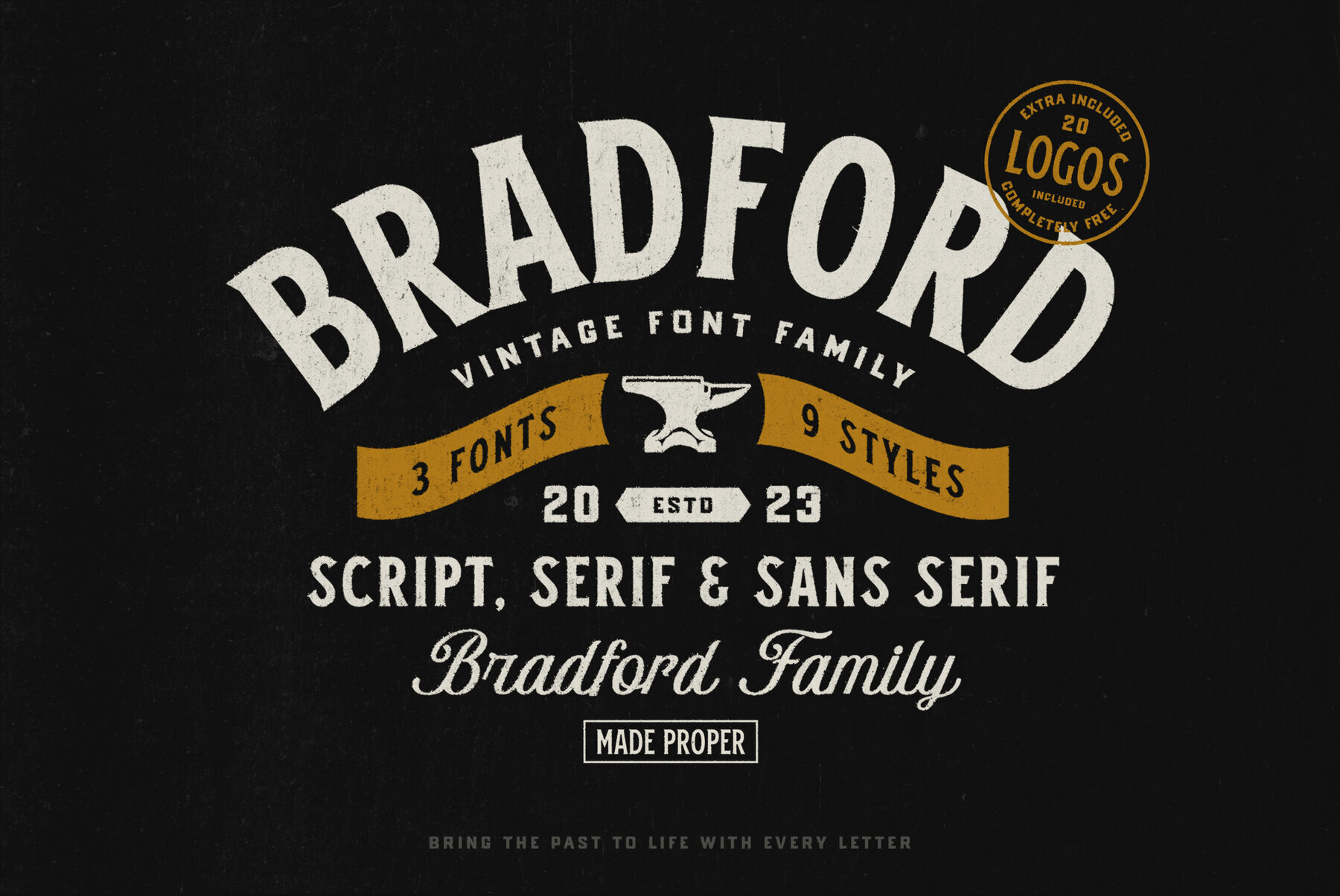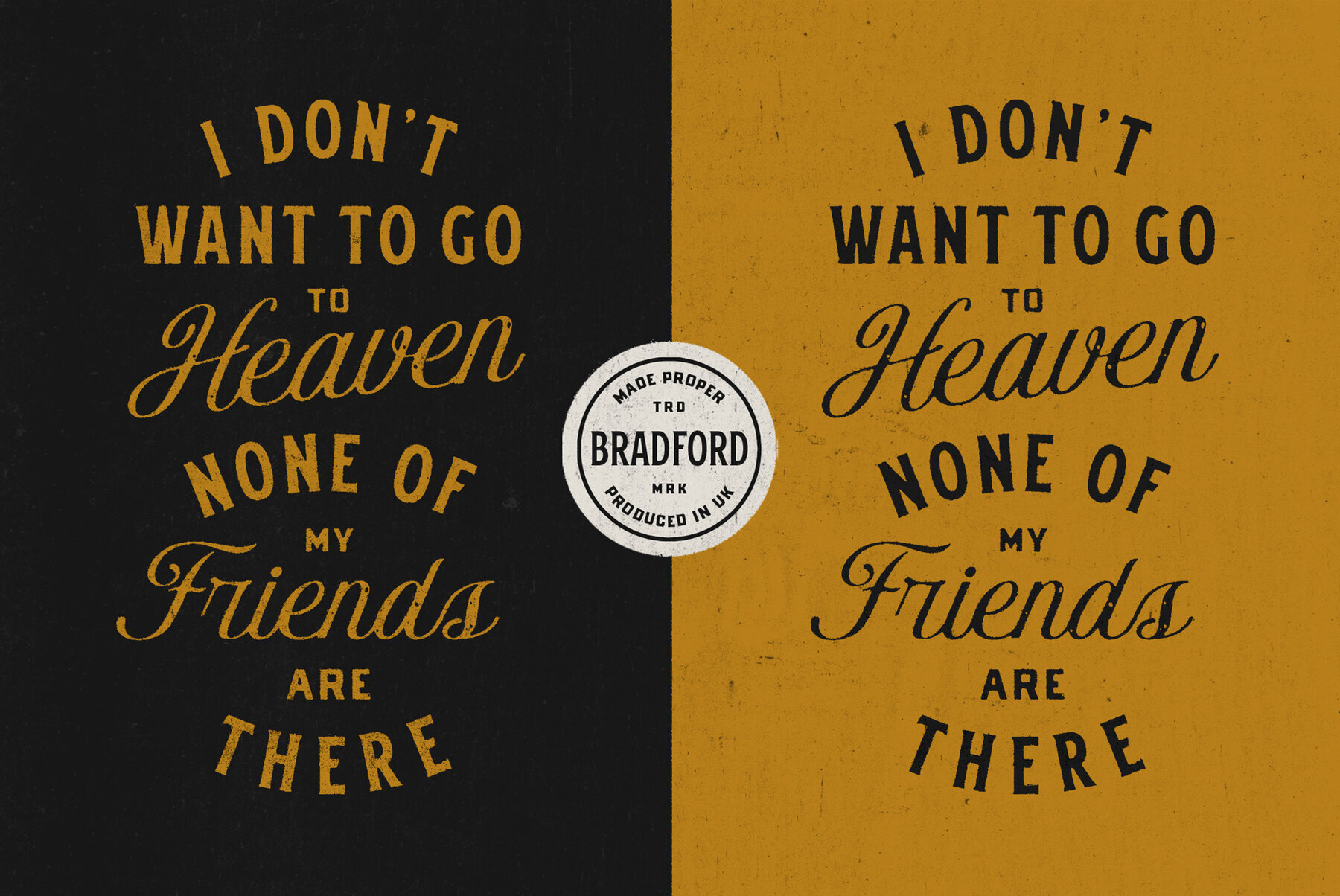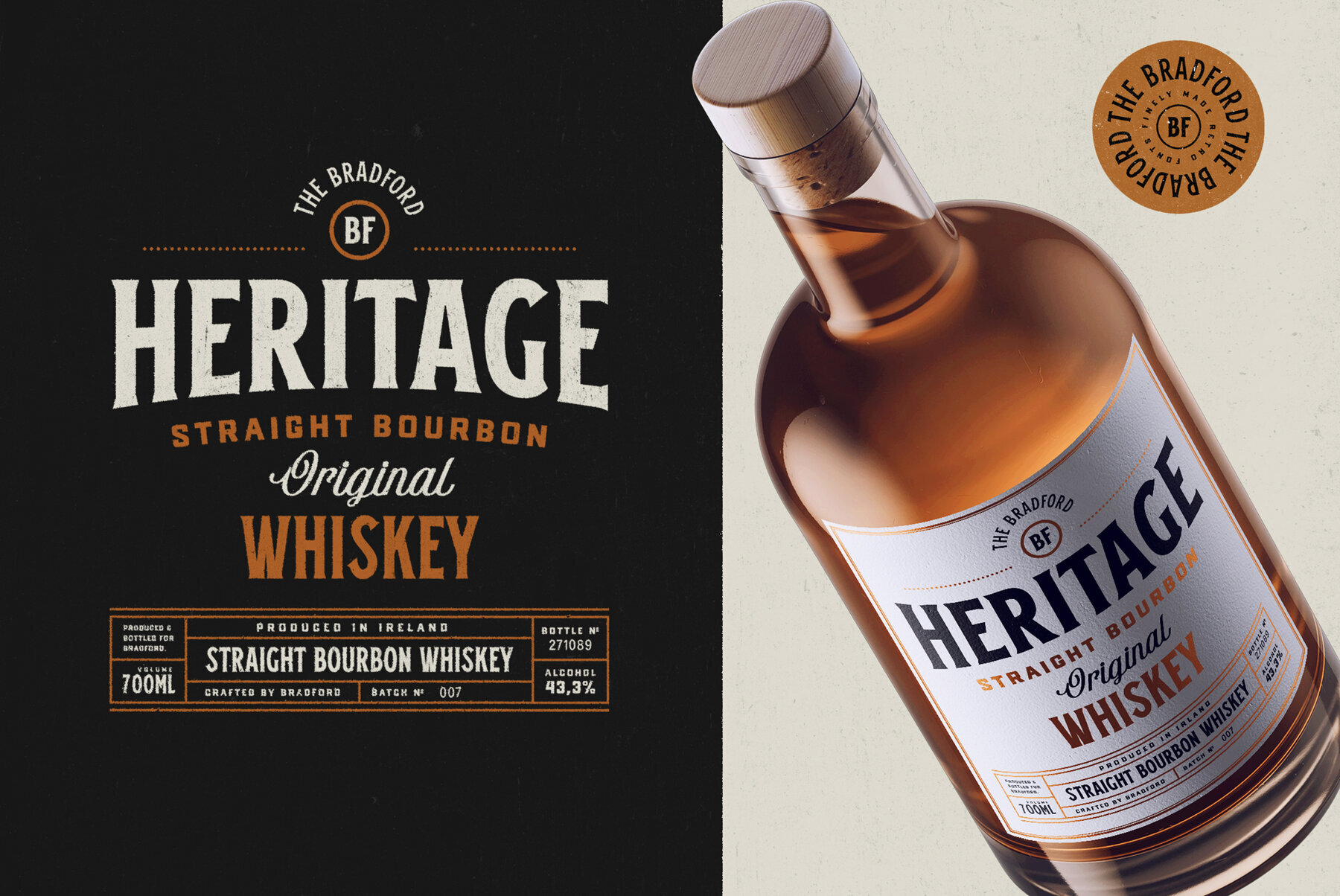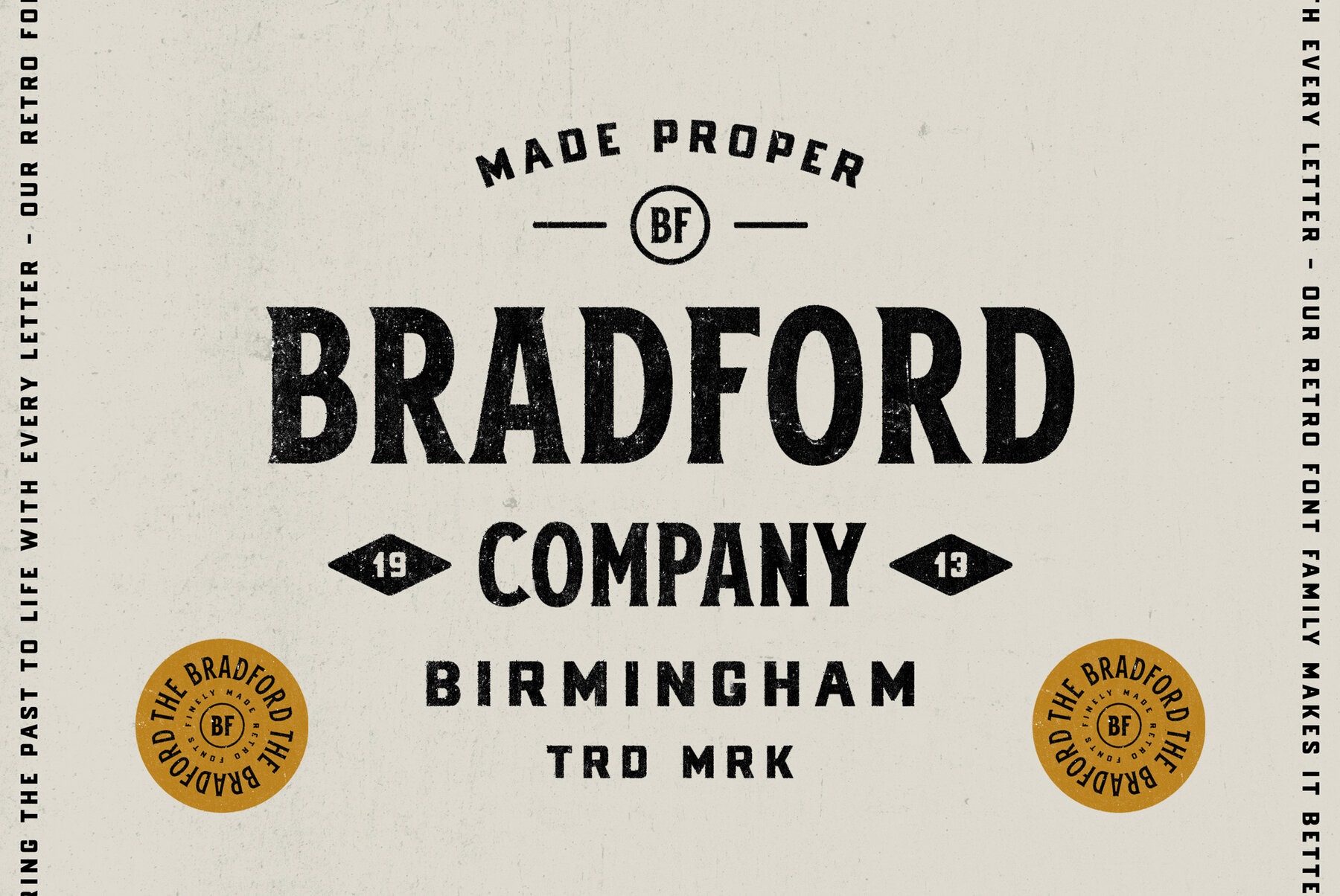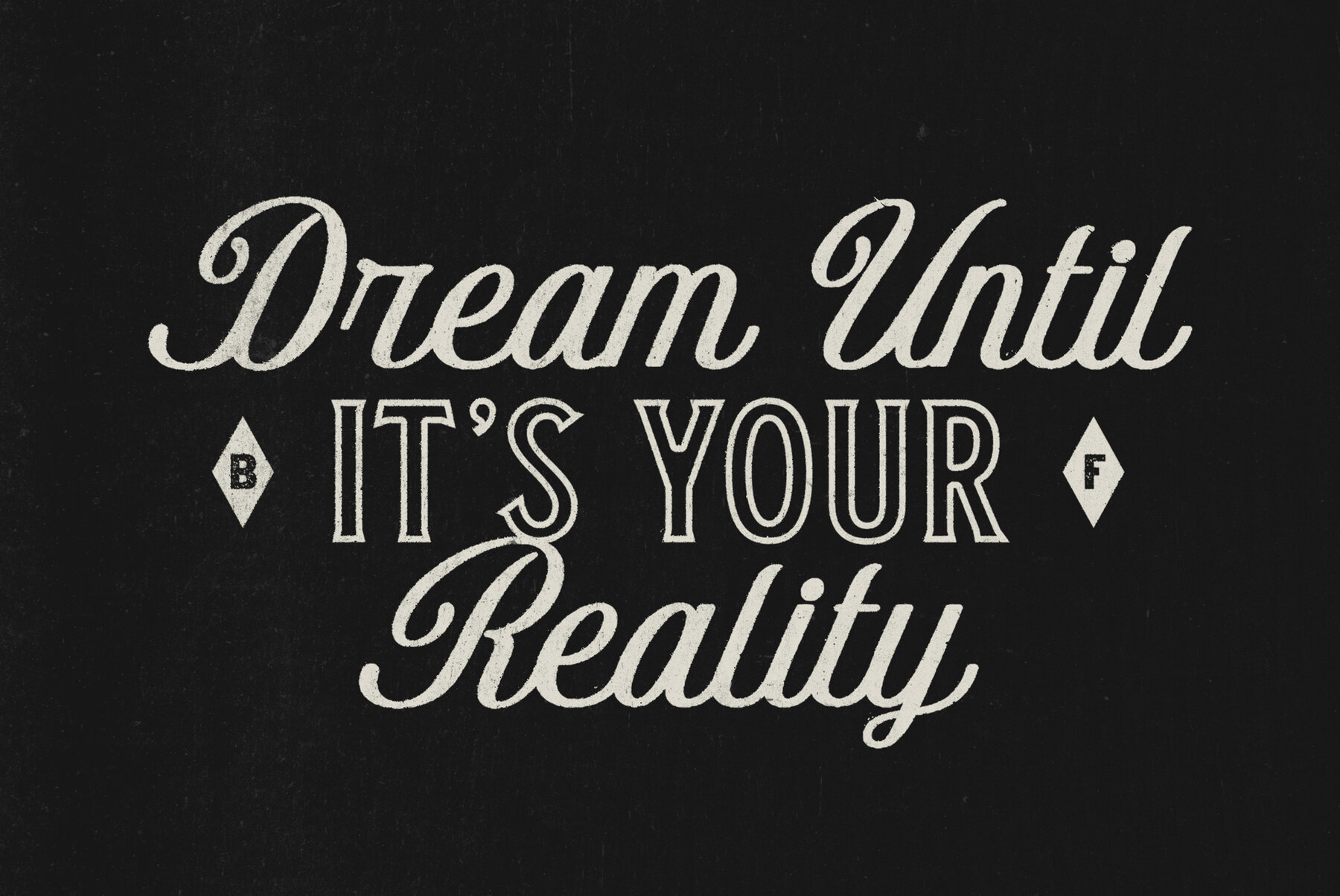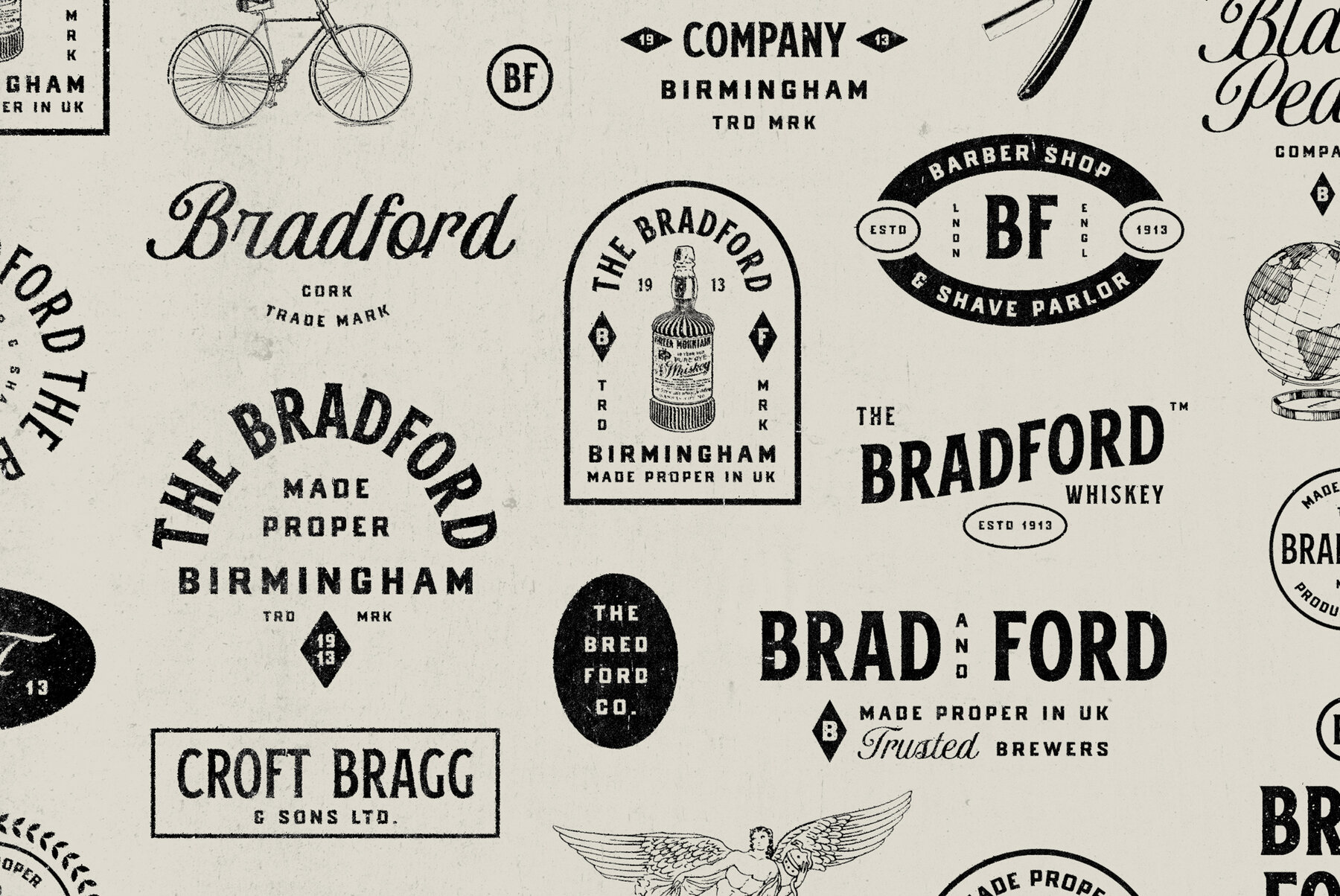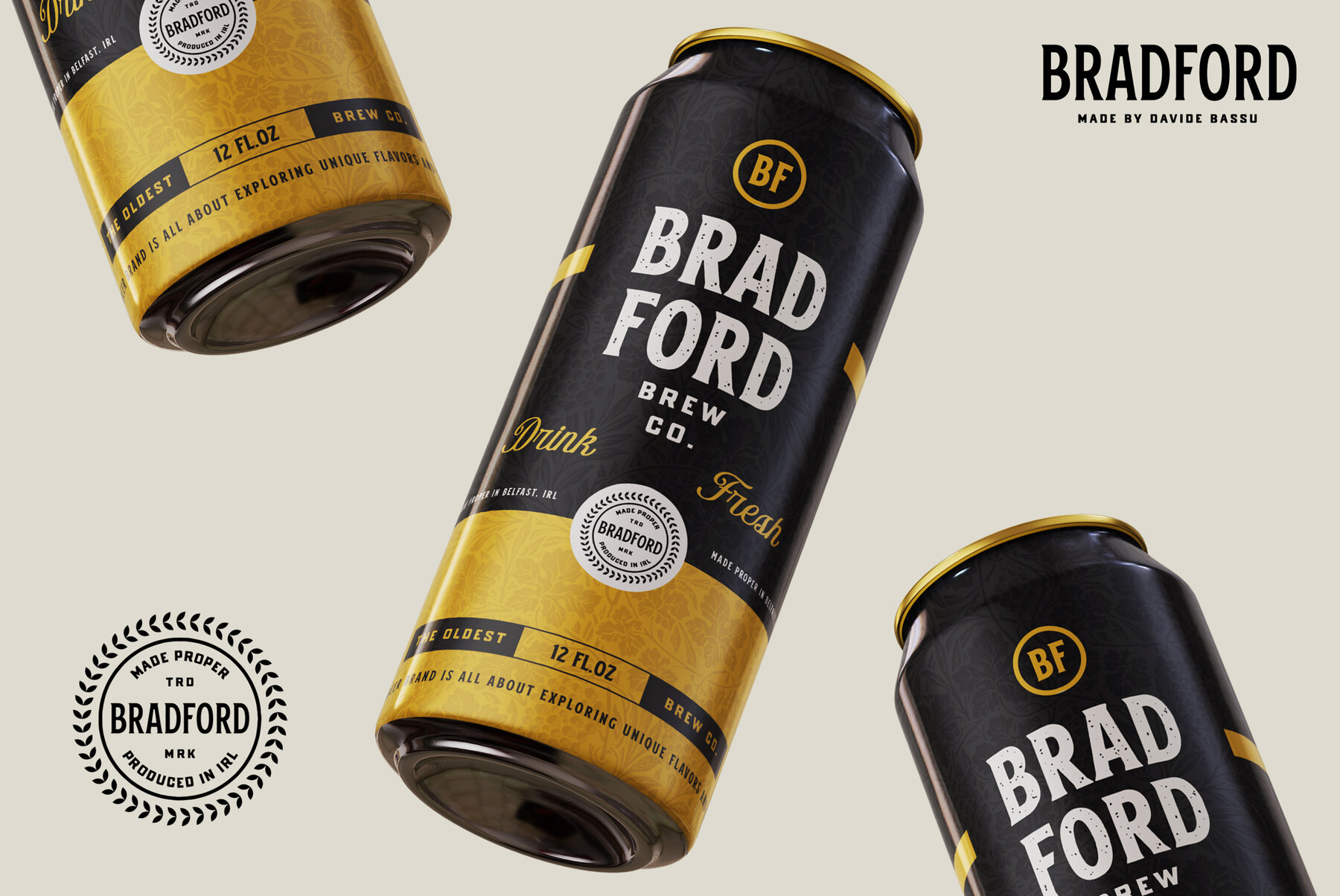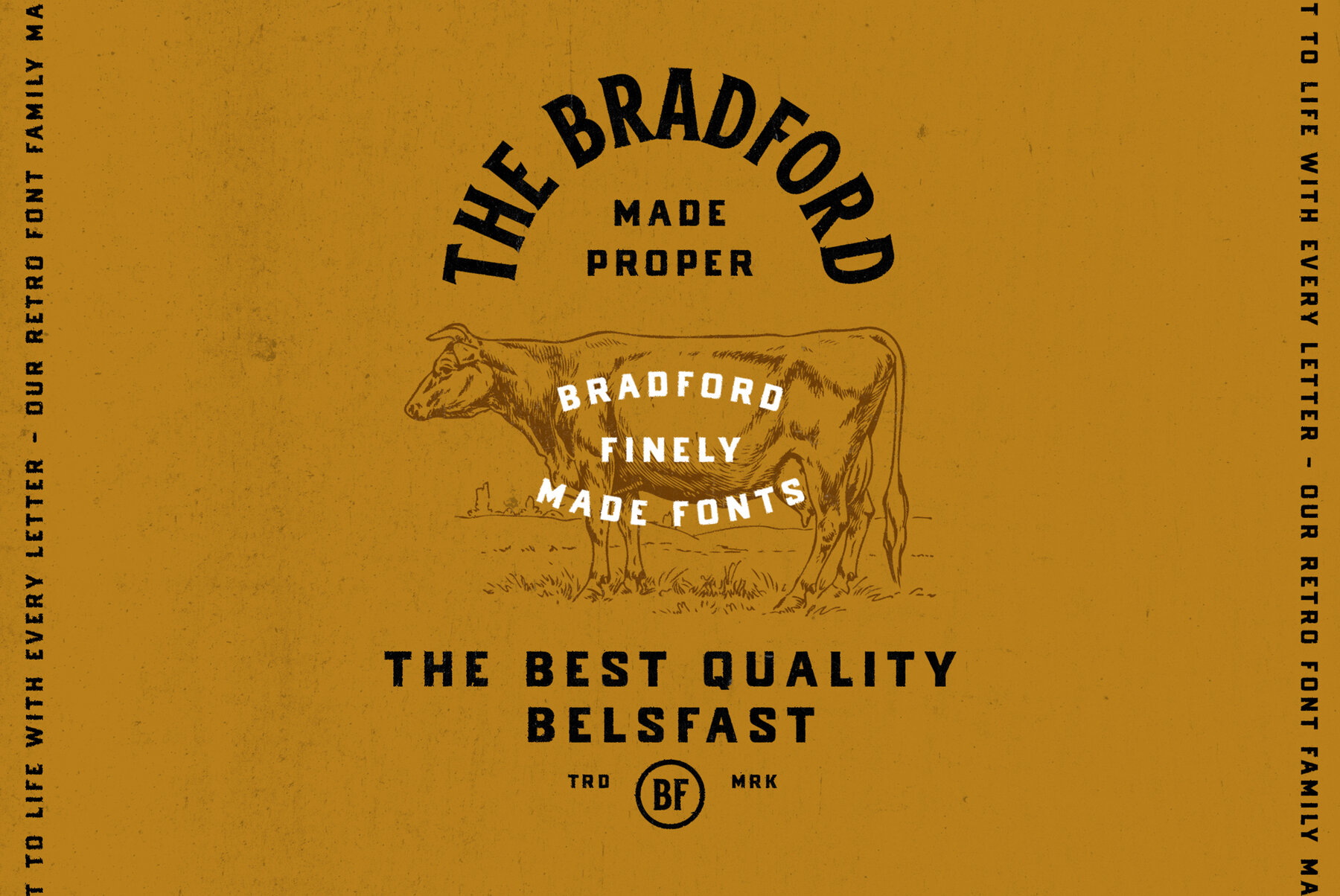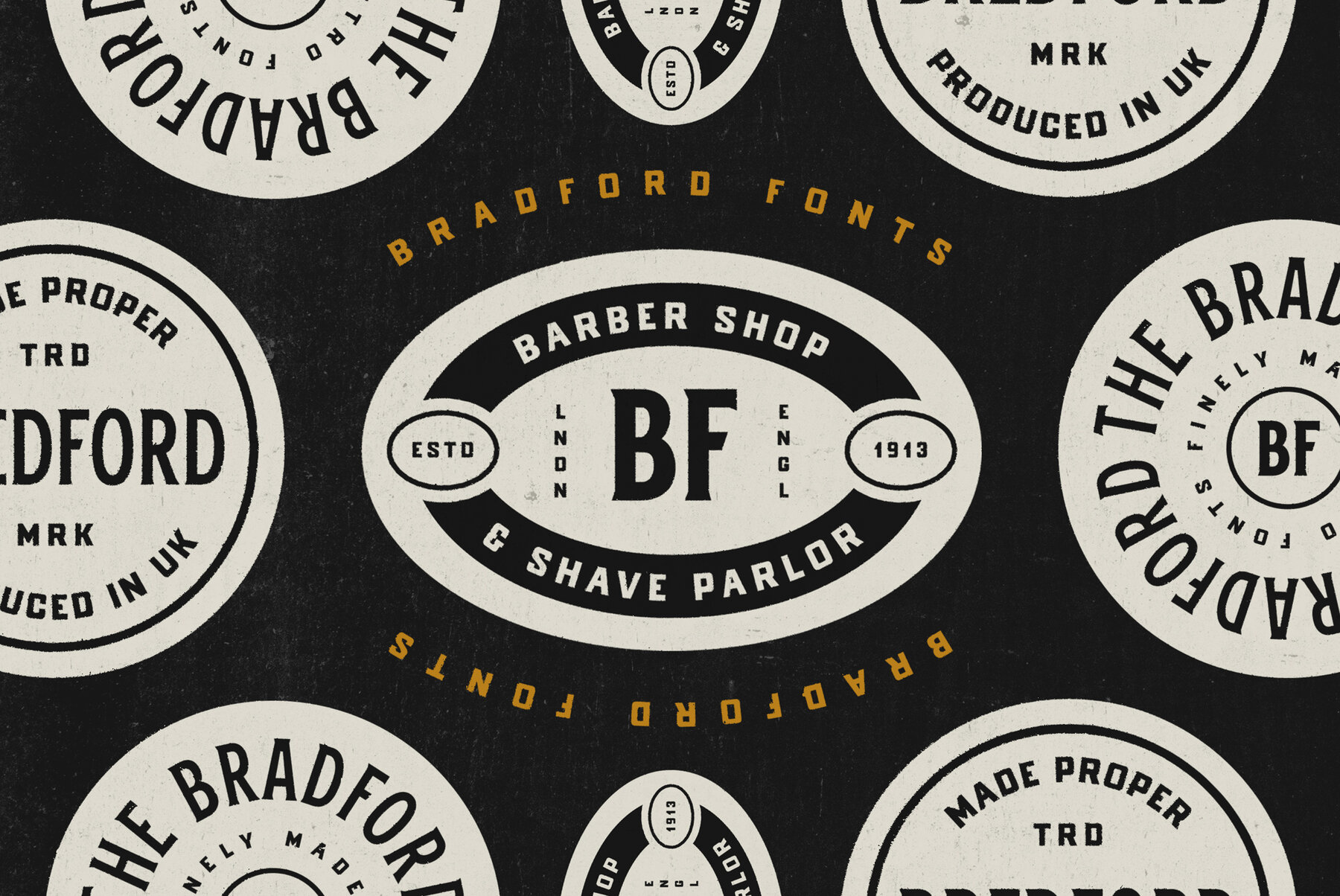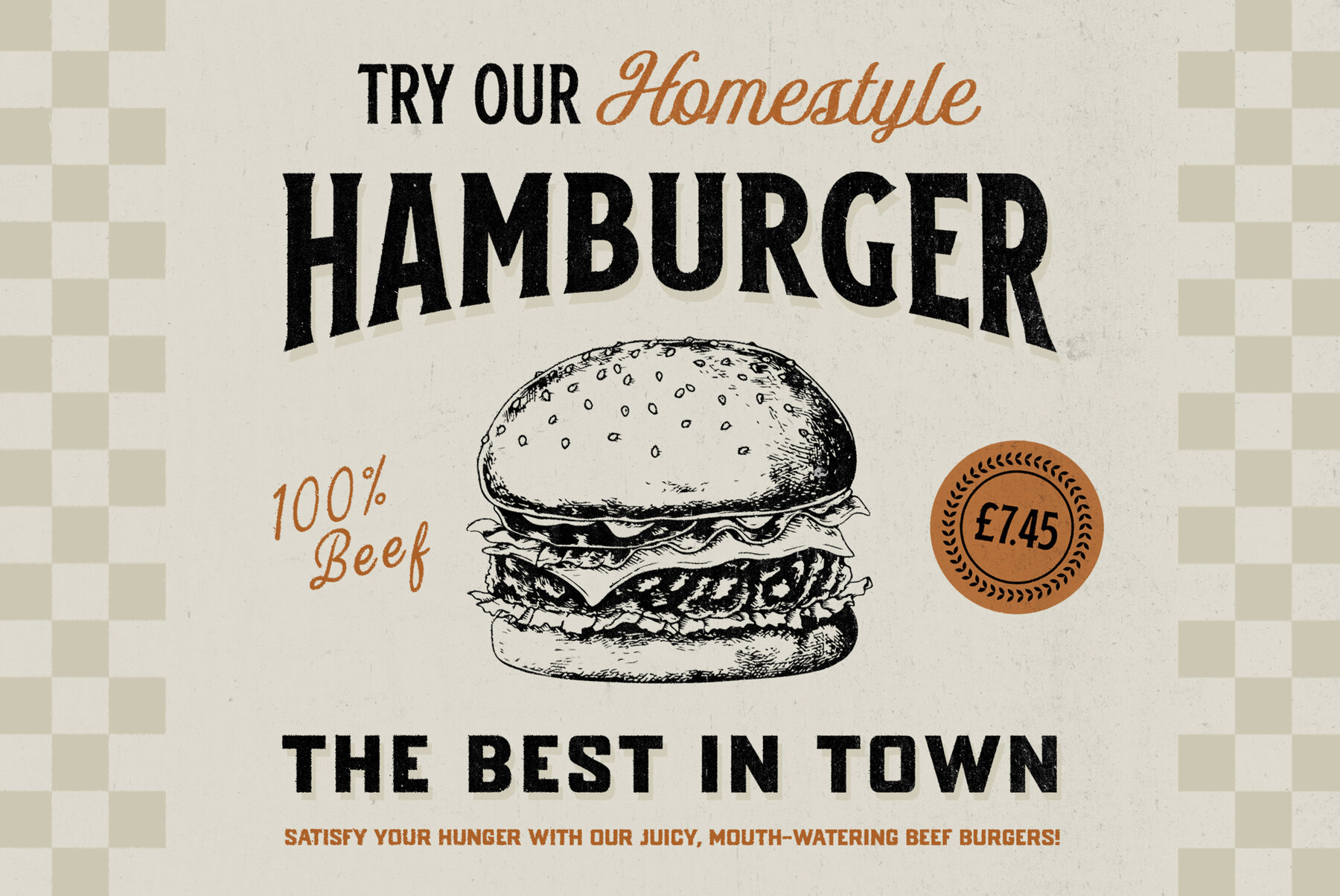
Davide Bassu brings a rustic charm to the world of typography, creating fonts that exude character and nostalgia. His work seamlessly combines vintage aesthetics with modern functionality, evident in standout designs like the Stunt Co. Font Family and the Bradford Font. From retro-inspired typefaces to hand-dr...